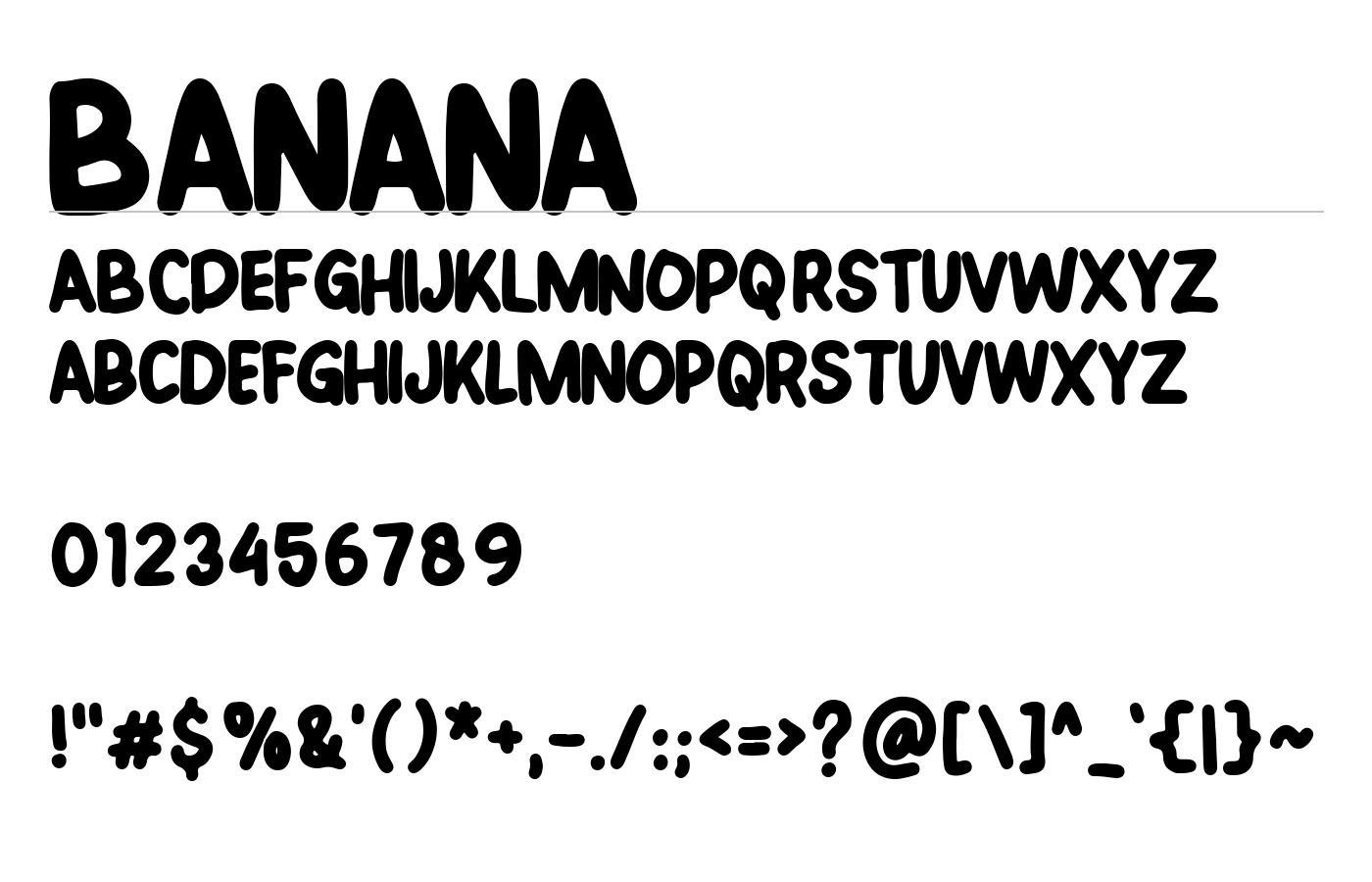
Banana Font is a bold, playful sans serif with rounded, bubbly letterforms that give it a friendly and casual feel. Its thick strokes and slightly irregular shapes make it ideal for fun, informal designs such as children's books, cartoons, or lighthearted branding. This font works best in headlines, logos, and packaging where a cheerful and approachable personality is desired.
Banana Font
About Banana Font
| Font family | Banana Font |
| Designer | Lady Hanna |